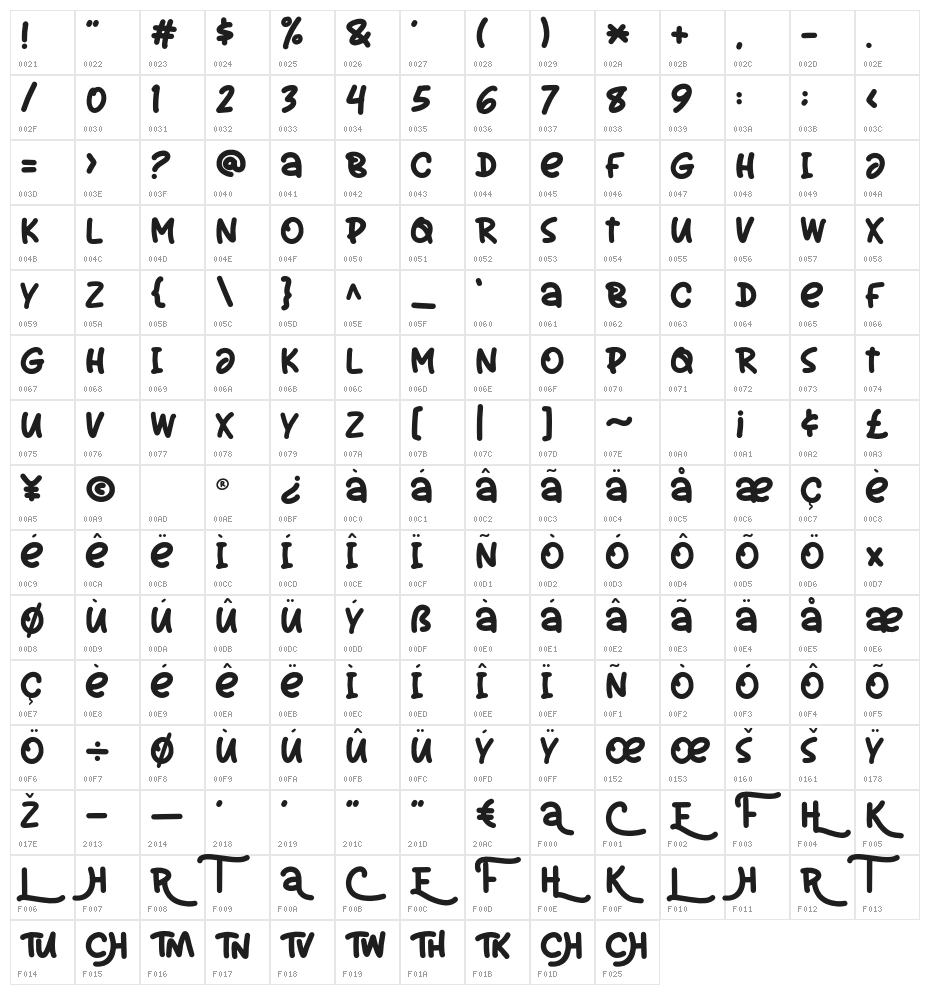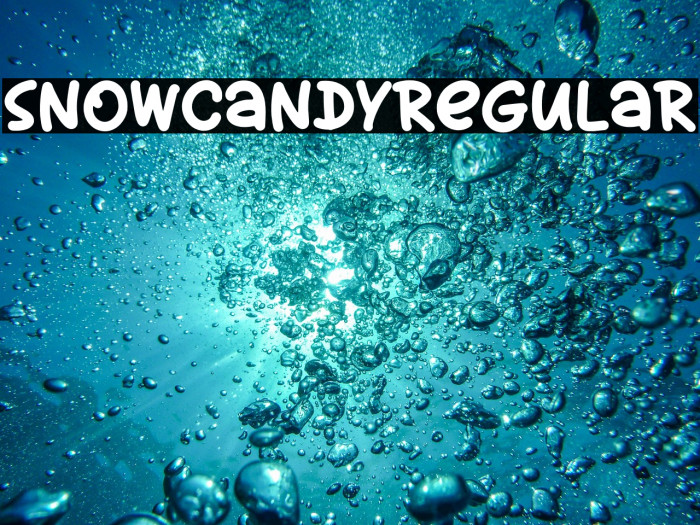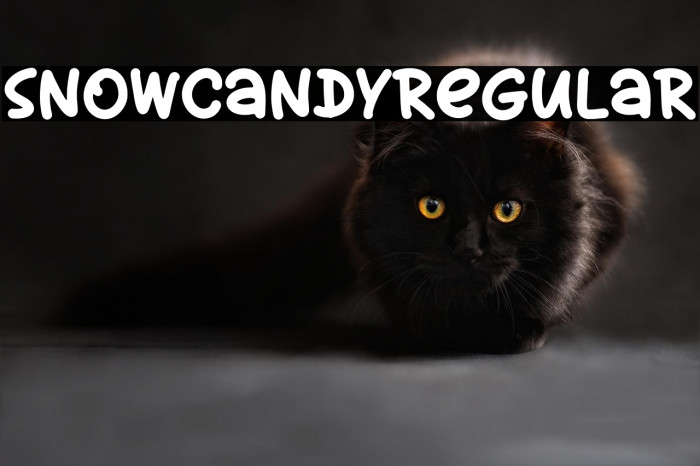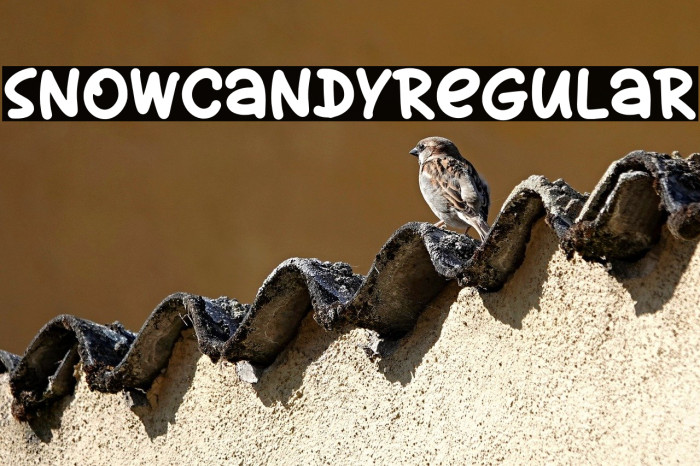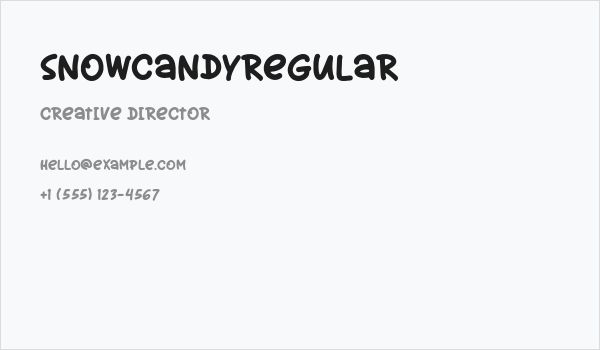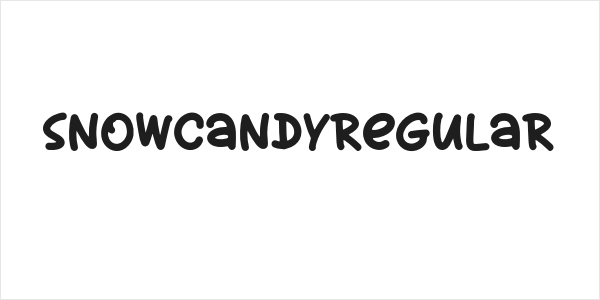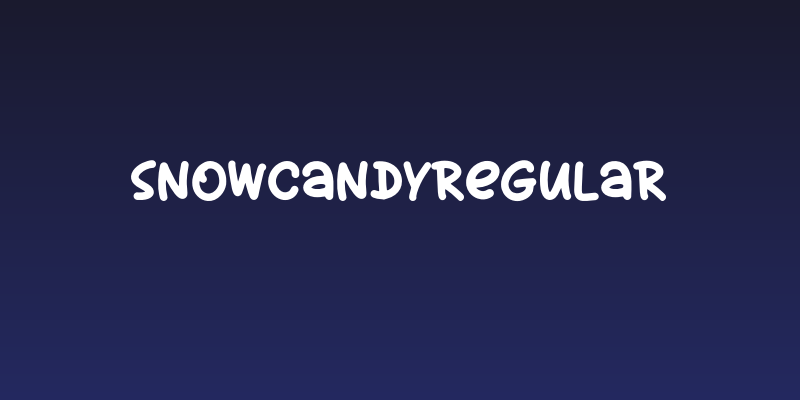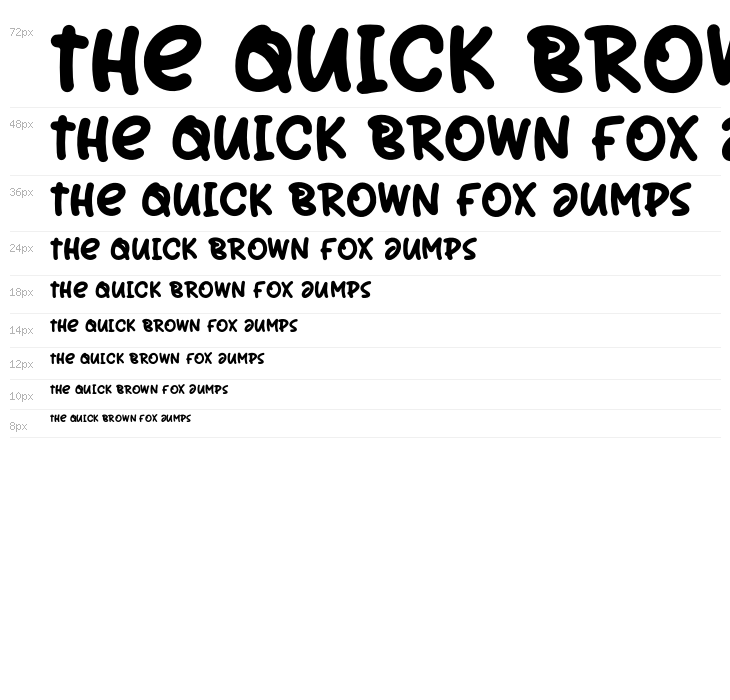
SnowCandyRegular Font
SnowCandyRegular Description
This playful and bold font features rounded, bubbly characters that exude a sense of fun and whimsy. The letters are thick and have a consistent stroke width, giving them a cartoonish and approachable appearance. The font maintains a uniform height across both uppercase and lowercase letters, enhancing its readability. Its informal style makes it ideal for projects that require a friendly and engaging look. The numbers and special characters are equally bold and maintain the same playful aesthetic, ensuring consistency throughout any text.
| Overall Style | Playful, Cartoonish |
| Proposed Projects | Ideal for children's books, playful branding, party invitations, and casual social media graphics. |